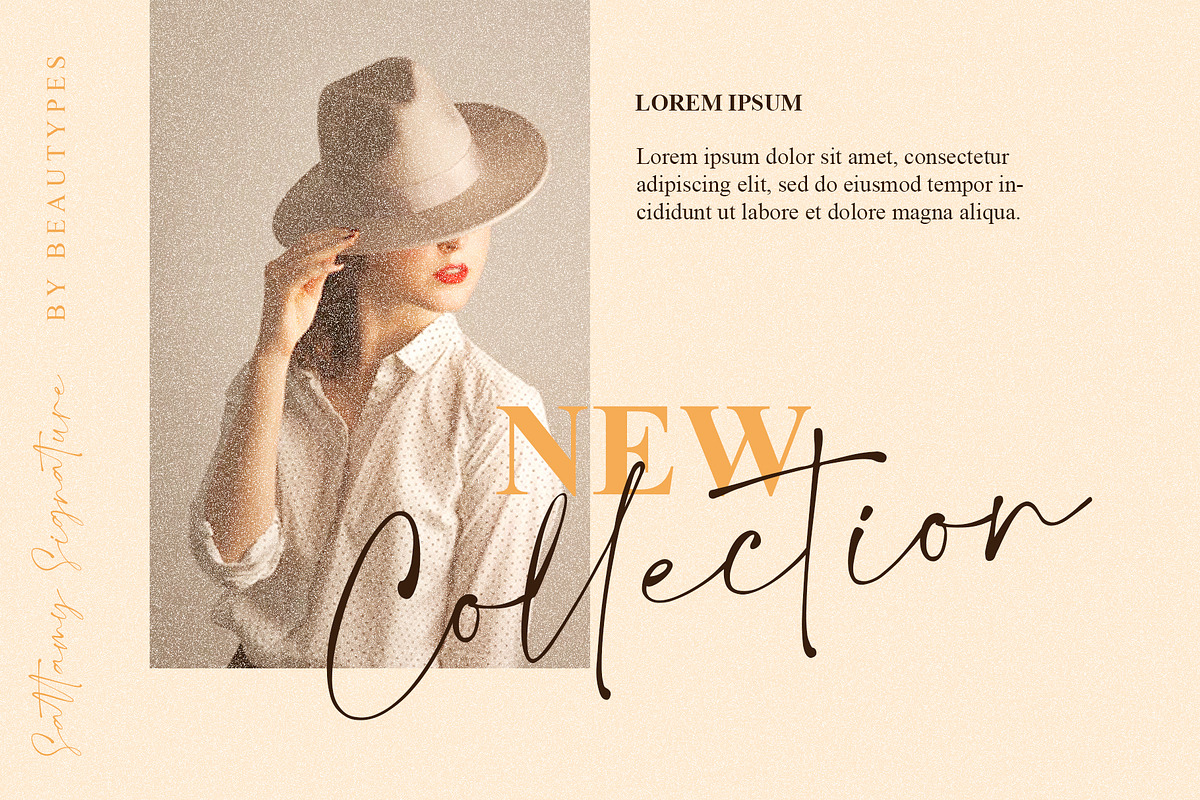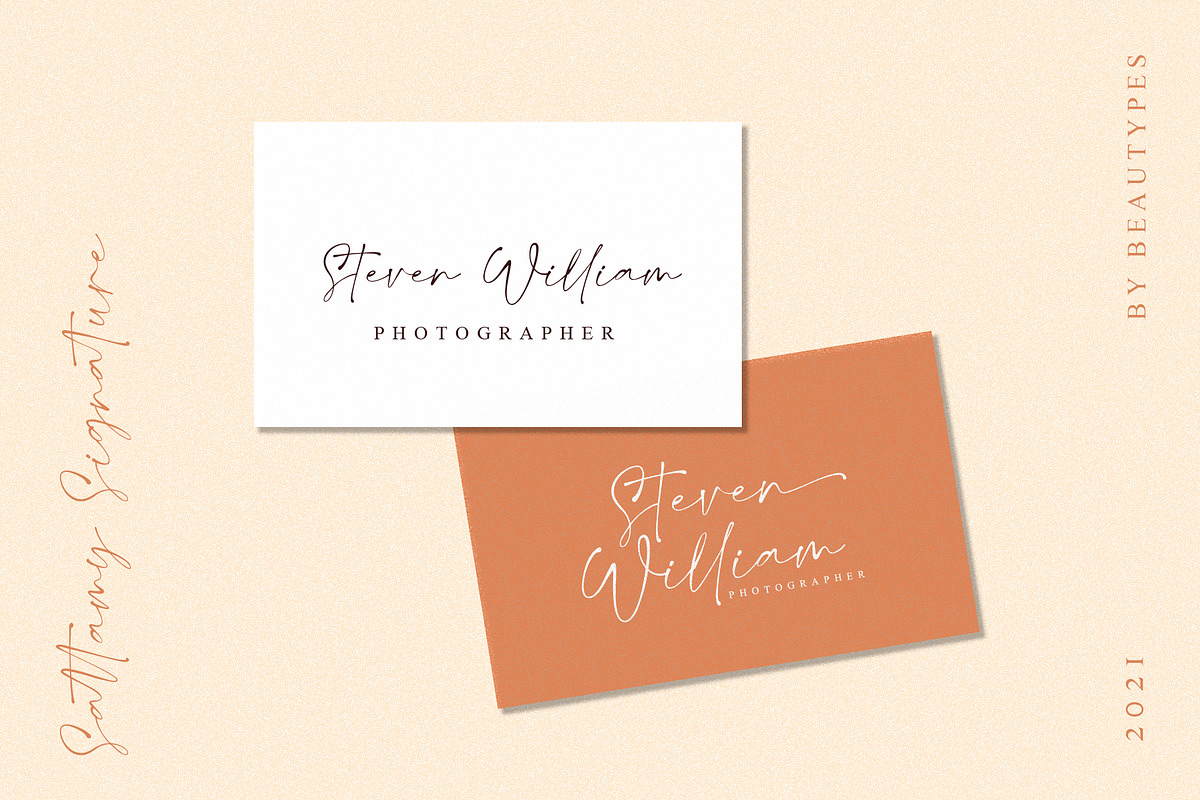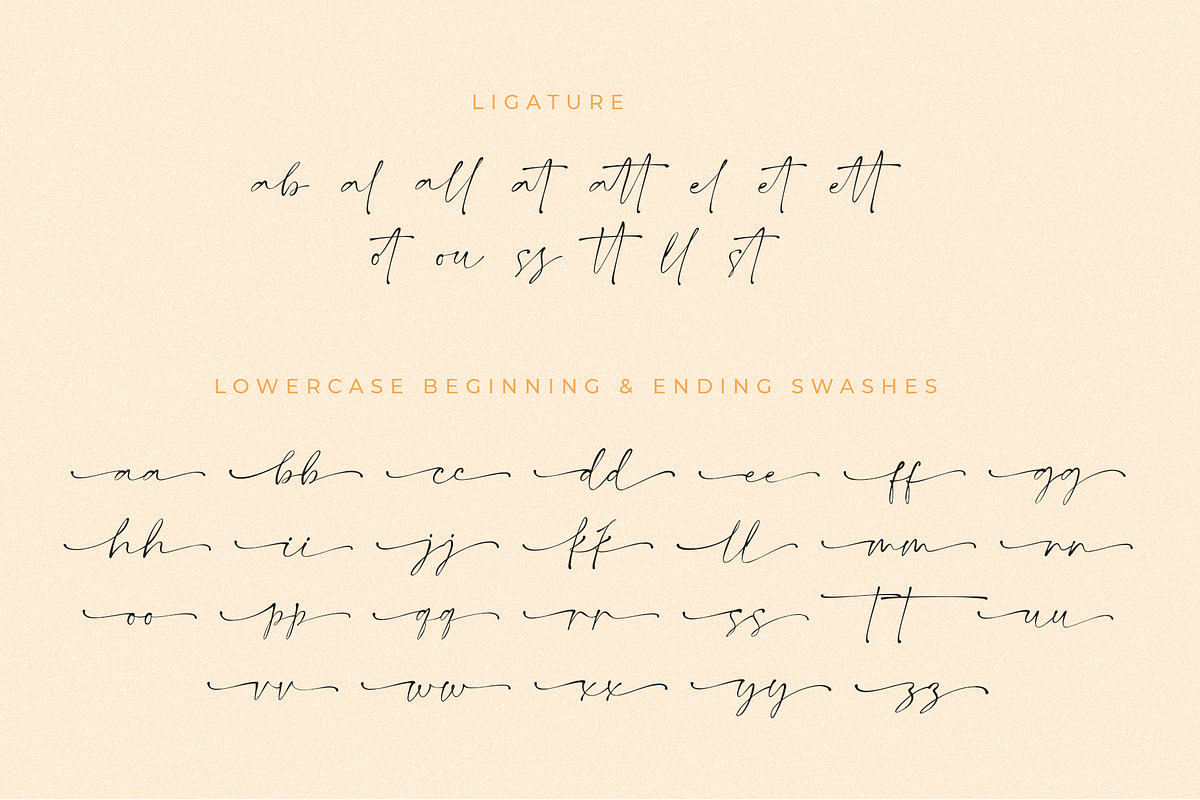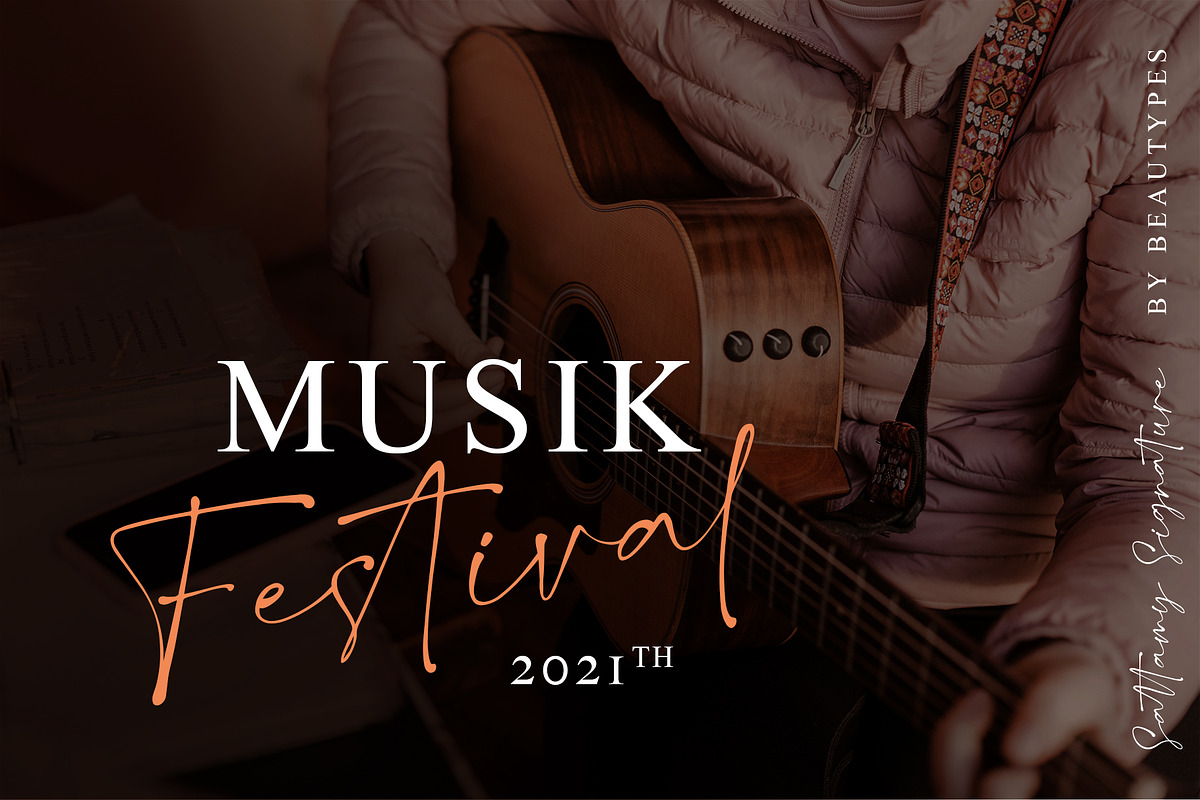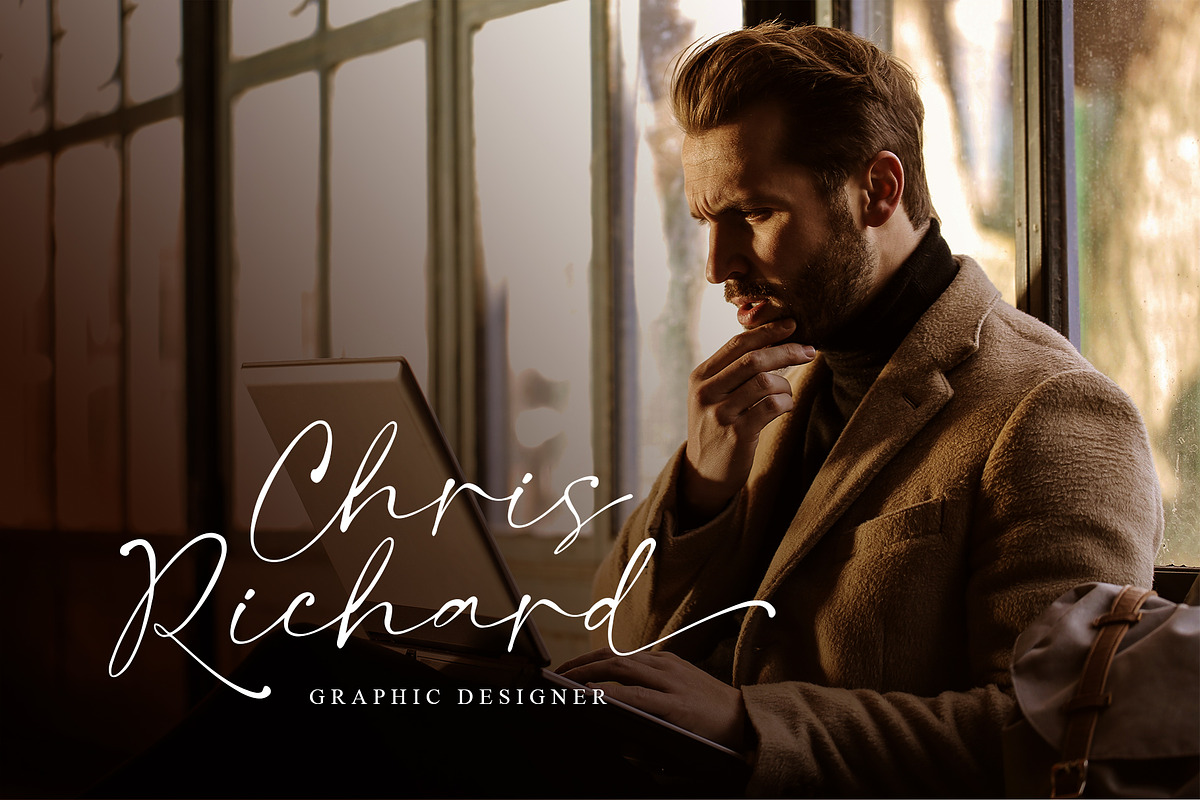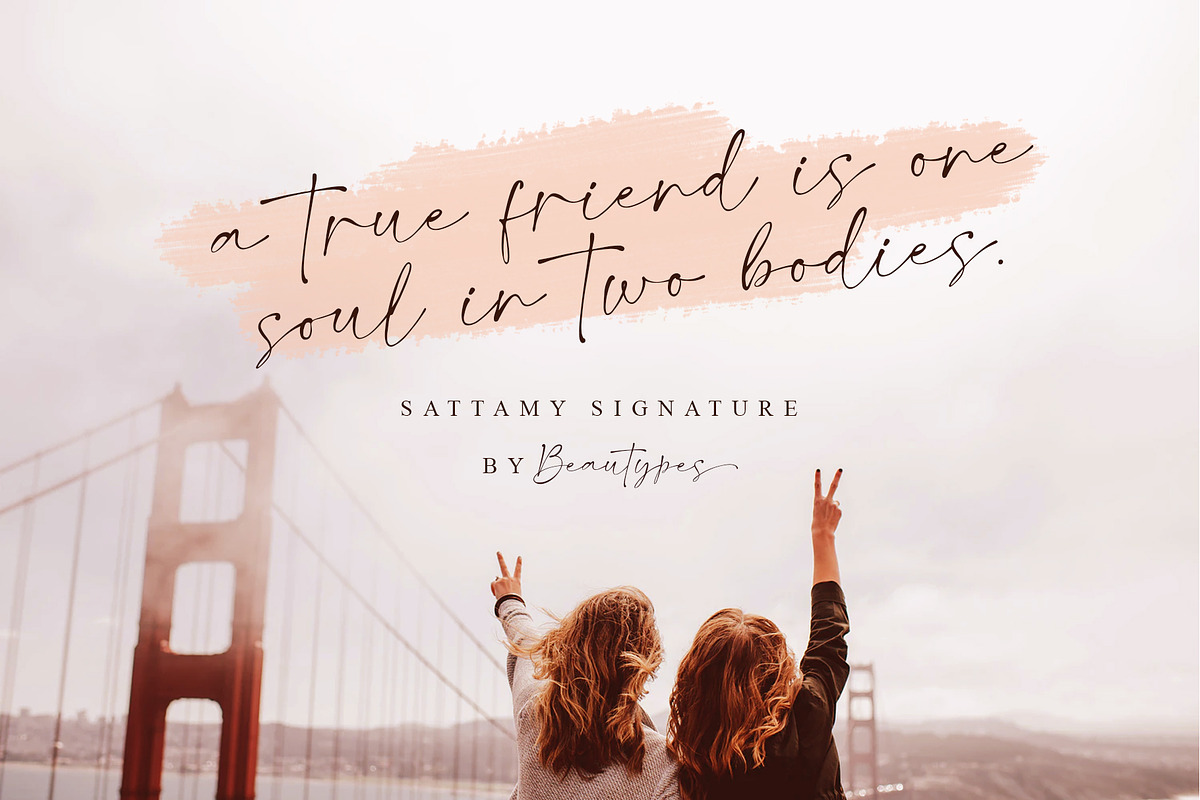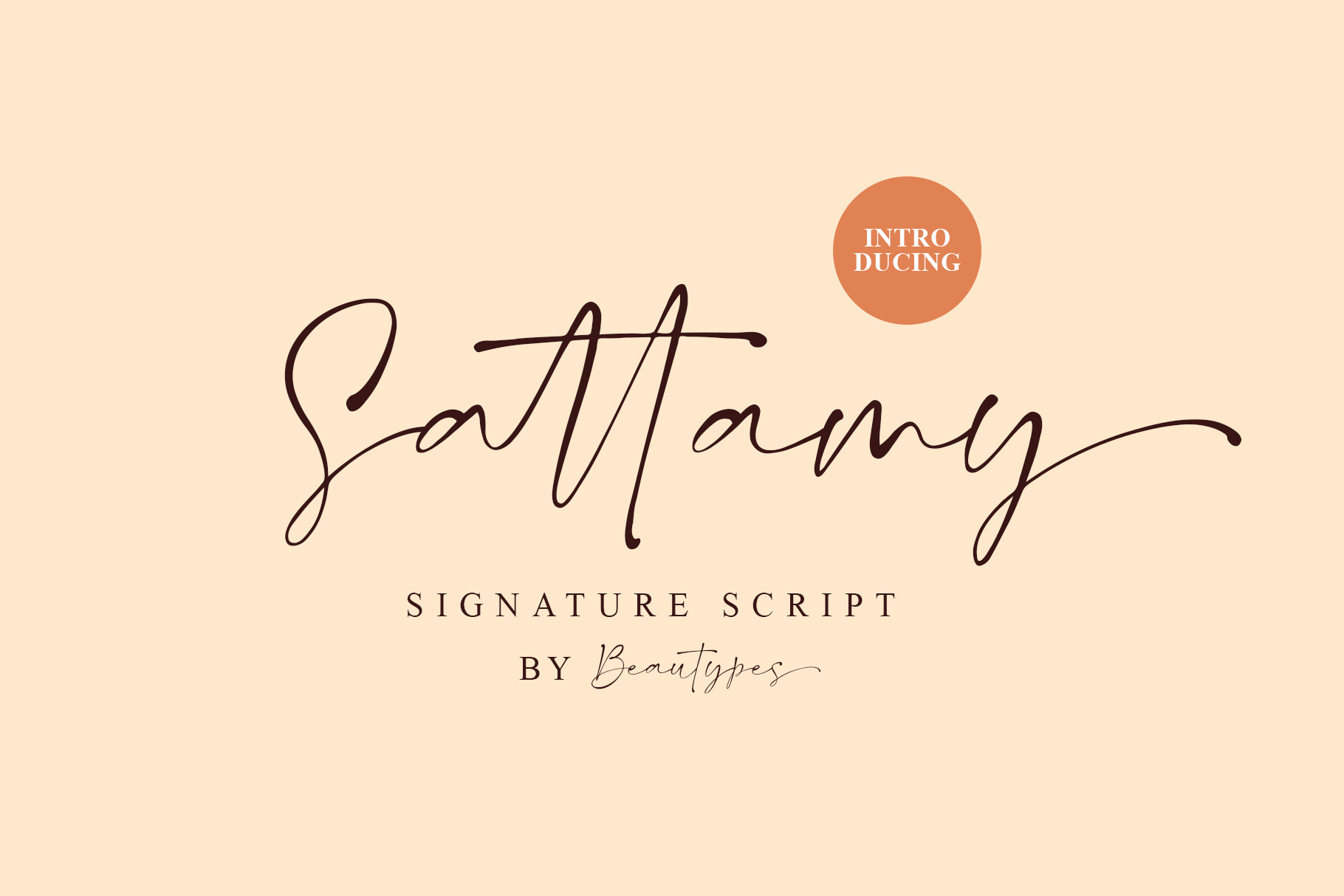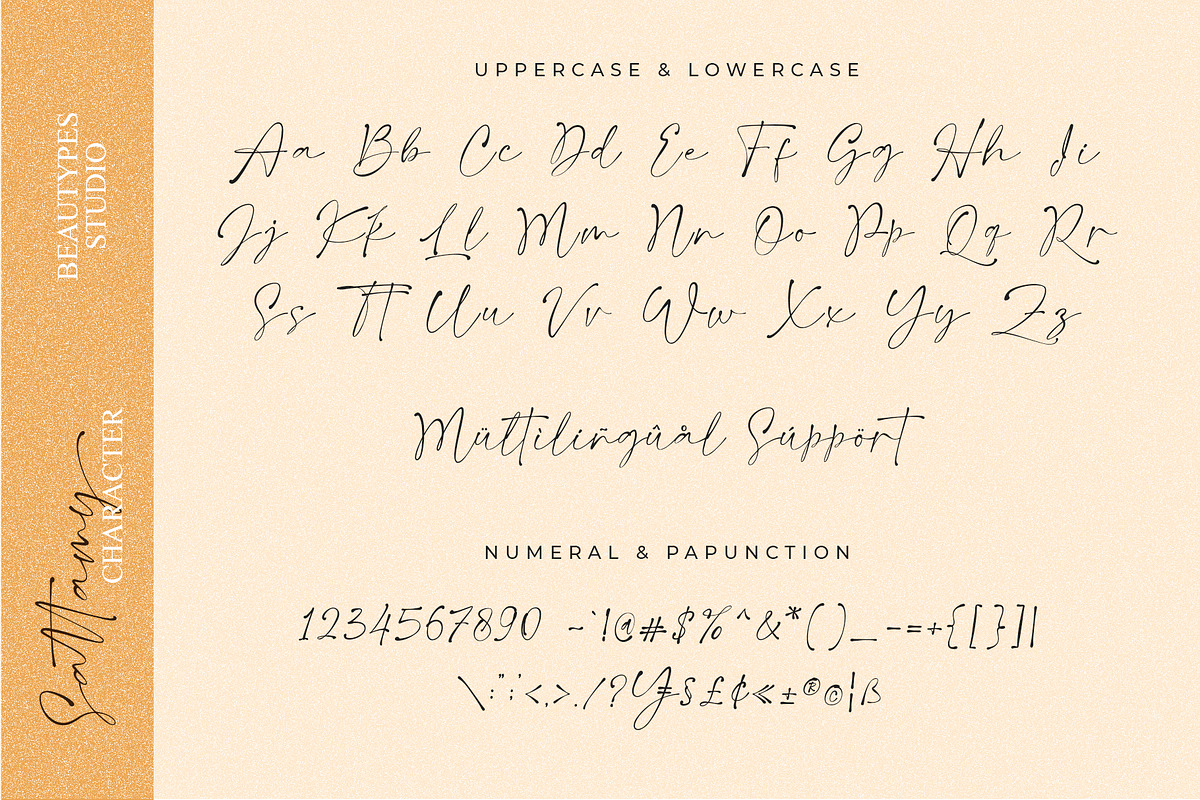
Sattamy Signature | handwritten font
Sattamy Signature is an organic handwritten font that is suitable for branding, signature, wedding invitation, promotion, product packaging, and other needs.